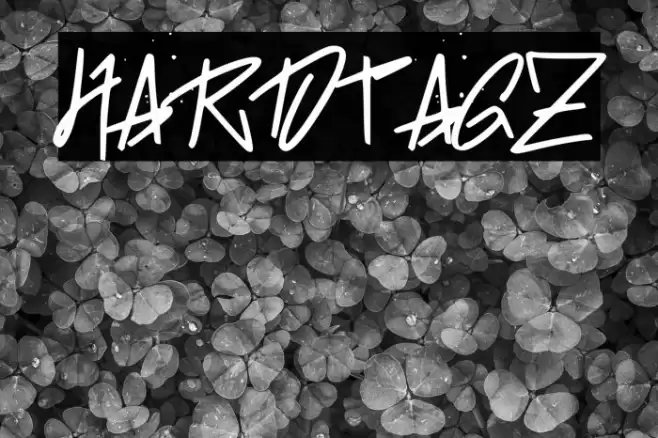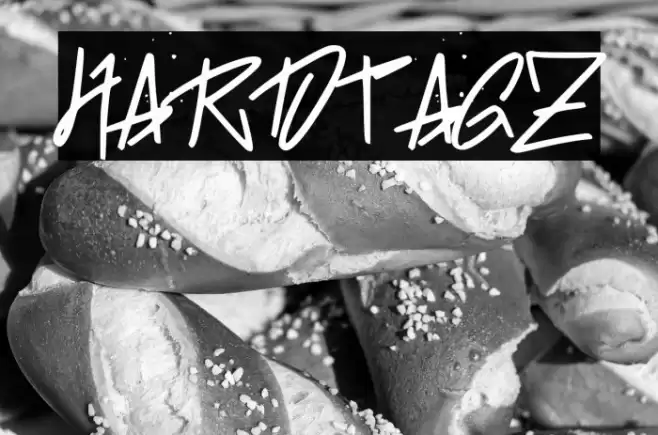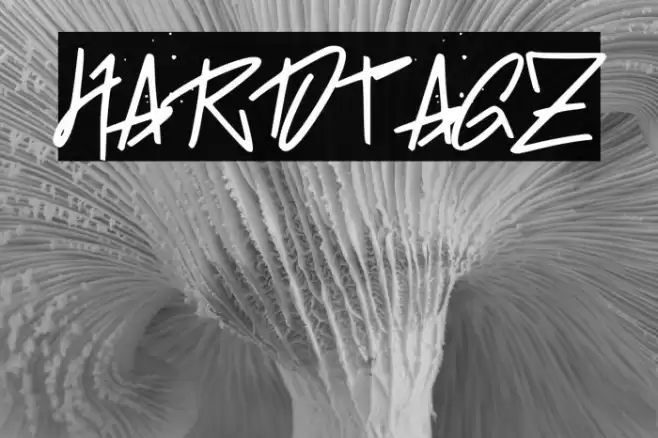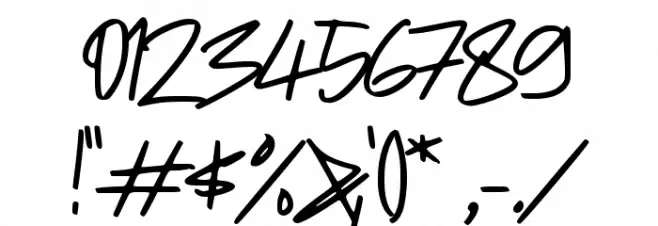
HARDTAGZ Font
HARDTAGZ Description
This font exudes a bold, urban graffiti style with its dynamic and energetic strokes. The letters are characterized by sharp angles and a hand-drawn appearance, giving it a raw and authentic feel. The uppercase and lowercase letters maintain a consistent style, with a slightly chaotic yet controlled form. Numbers and special characters follow the same aesthetic, ensuring a cohesive look across all text elements. The overall impression is one of movement and expression, making it ideal for projects that require a strong visual impact.
A bold, graffiti-inspired font with dynamic, hand-drawn strokes from Uncategorized fonts.
- Proposed Projects: Ideal for street art designs, urban-themed posters, music album covers, and edgy branding projects.
- Character Spacing: Tight
- Overall Style: Urban, Graffiti, Expressive